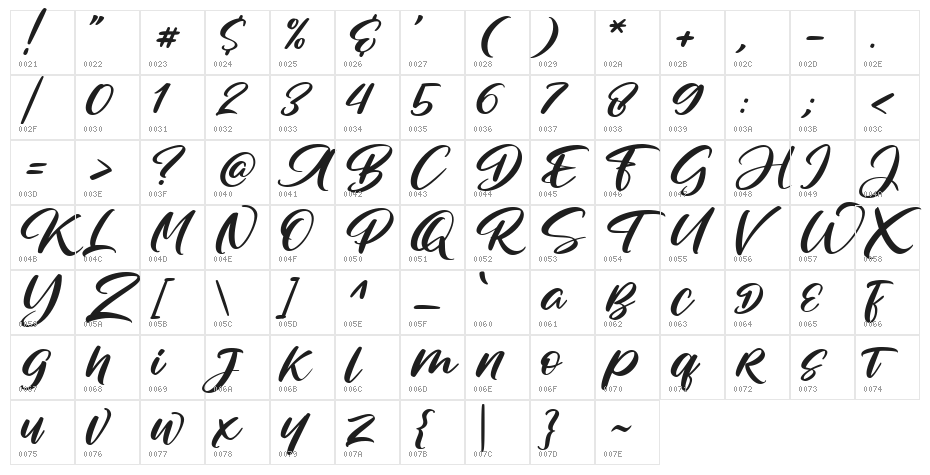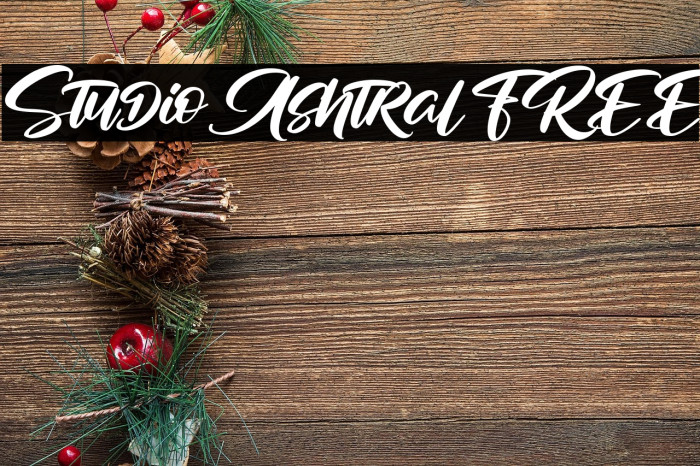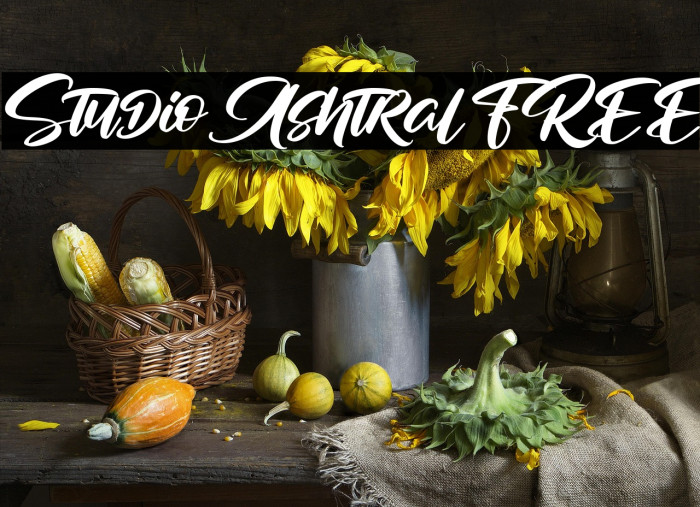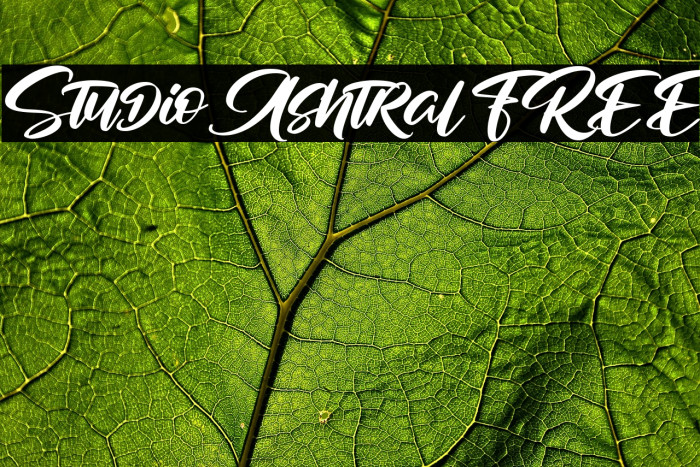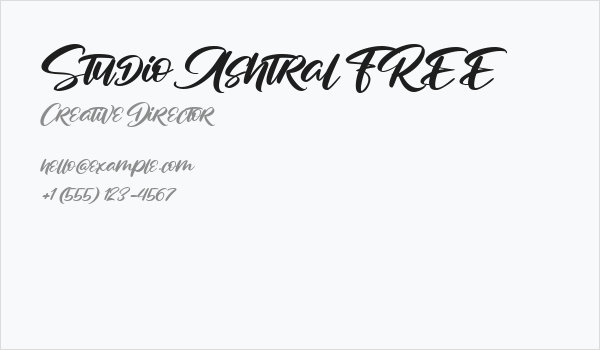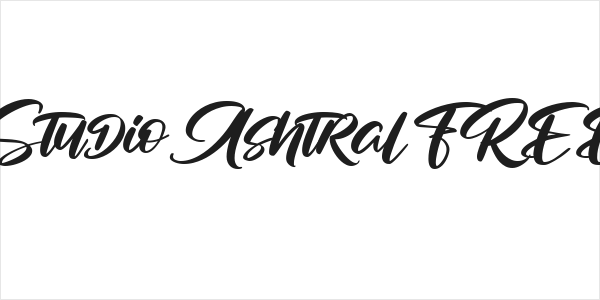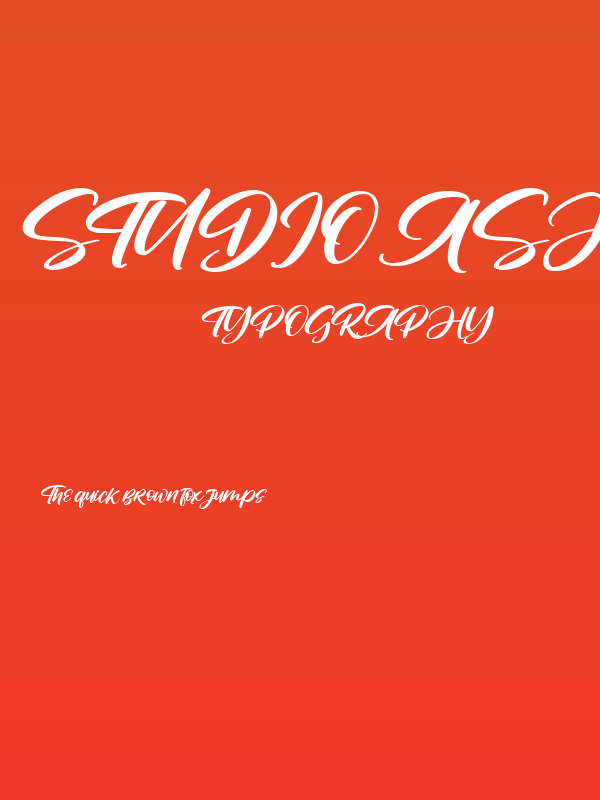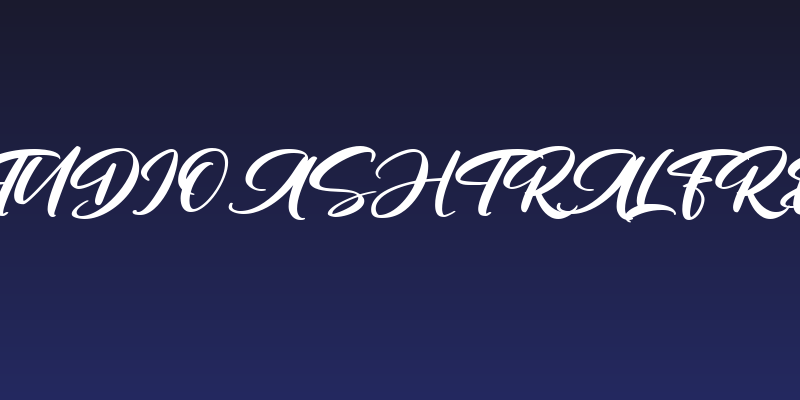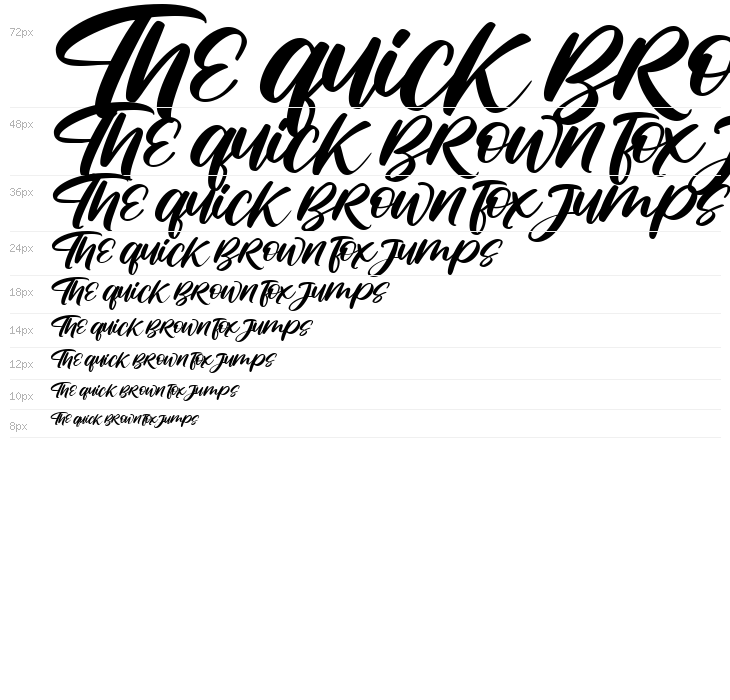
Studio Ashtral FREE Font
Studio Ashtral FREE Description
This font features a bold and expressive script style, characterized by its flowing, cursive letterforms that exude a sense of elegance and dynamism. The strokes are thick and consistent, with a high contrast between the thick and thin parts of the letters, giving it a dramatic and eye-catching appearance. The uppercase and lowercase letters maintain a cohesive style, with smooth curves and a slight slant that enhances its fluidity. The numerals and special characters are designed to match the overall aesthetic, ensuring a harmonious look across all text. This font is ideal for projects that require a touch of sophistication and flair, such as invitations, branding, and decorative headlines.
| Proposed Projects | Ideal for invitations, branding, decorative headlines, and any project needing an elegant touch. |